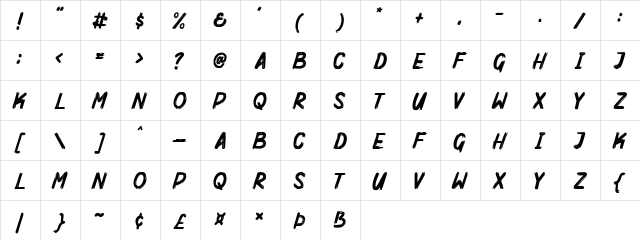
Mighty Brush Regular
| Foundry | Garisman Studio |
| Designer | Risman Ginarwan |
Design Context for Mighty Brush Typeface
Mighty Brush flows with the natural rhythm of handwritten lettering, making it ideal for designs that call for warmth and personal expression.